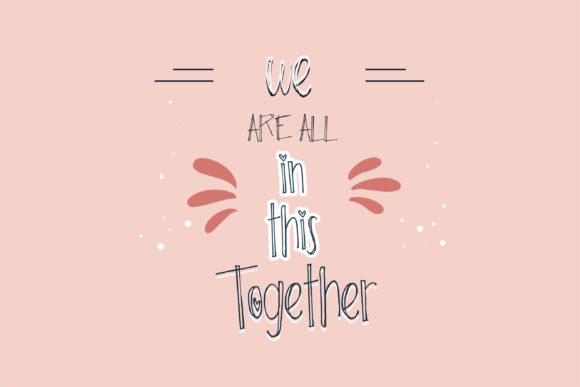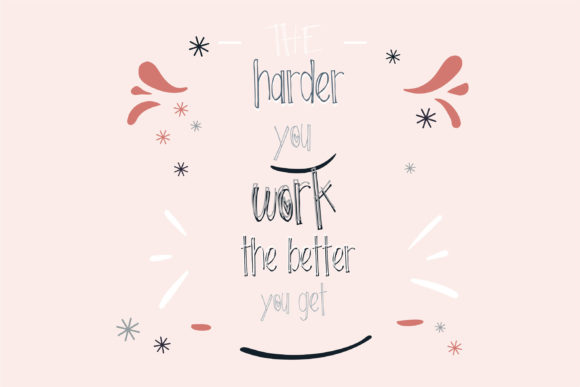
About ZP Roving Heart Font
“ZP Roving Heart Font” is a hand-written sans serif typeface that features double lines and occasional heart motifs. With its informal and playful style, this font is well-suited for a wide range of design projects. The incorporation of double lines and heart symbols adds a unique and endearing touch to the font’s design.
The font’s casual and playful appearance makes it a versatile choice for different design applications. Whether you’re working on invitations, social media graphics, posters, or any other creative project, “ZP Roving Heart Font” has the potential to infuse your work with a sense of informality and whimsy.
The inclusion of double lines and occasional heart symbols contributes to the font’s distinctive and eye-catching look. These elements bring an extra layer of creativity and personalization to your designs, making them stand out and capture the viewer’s attention.
In essence, “ZP Roving Heart Font” is more than just a font—it’s a creative tool that adds a playful and unique dimension to your ideas. Its informal appearance and the incorporation of double lines and hearts make it a valuable asset for designers aiming to create visually engaging and delightful designs that leave a lasting impression.